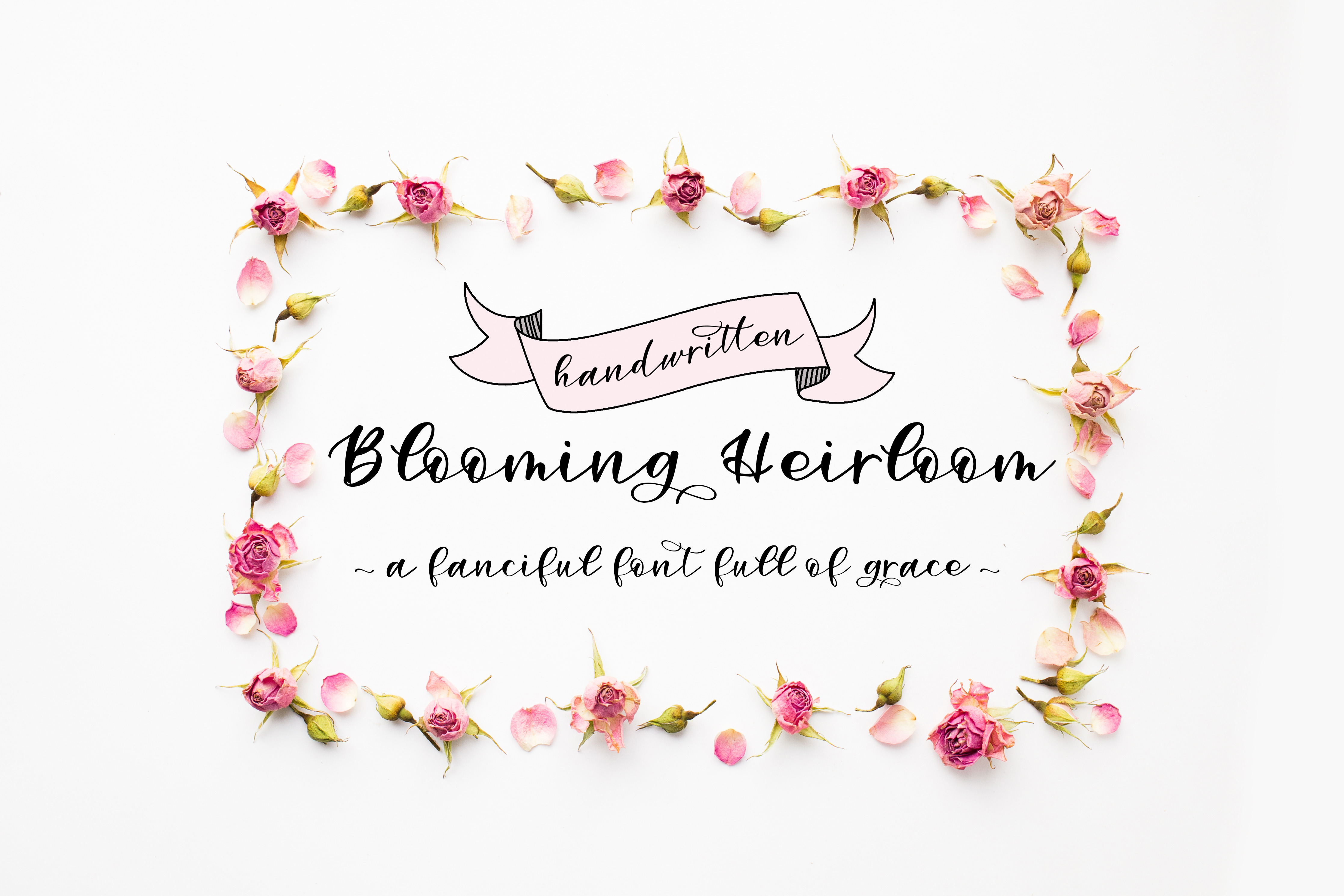
Blooming Heirloom-A Handwritten Font
Blooming Heirloom ~A Handwritten Font
Blooming Heirloom is a bouncy font with flirtatious swirls. A script calligraphy font that is simple and easy to read, yet graceful enough for any important occasion. Added ligatures give this handwritten font a personal touch of realism without you having to do any of the work.
This hand-lettered script will look ideal on all your designs, wedding invites, branding materials, logo's, business cards, and quotes.
Not only does this script font support International Characters, it is chalk full of added ligatures and brush strokes.